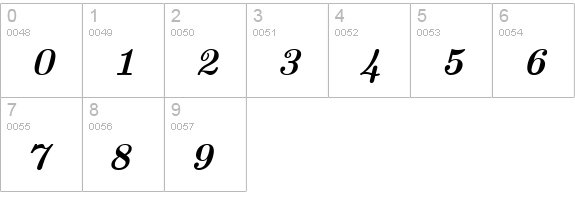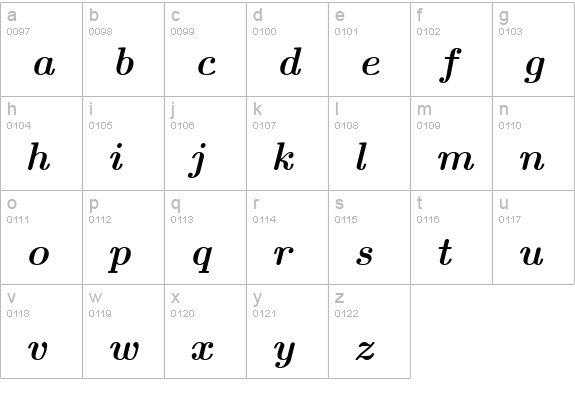
TeXplus RM Bold Italic is a strong, high-contrast, italic variant in the TeXplus typeface family \xE2\x80\x94 well suited to headlines, attention-grabbing titles, and strong calls-to-action.
TeXplus RM Bold Italic is a striking and versatile font that exudes confidence and sophistication. With its bold and italicized design, this font effortlessly captures attention and adds a touch of elegance to any design project. Perfect for headings, titles, and emphasis, TeXplus RM Bold Italic combines the boldness of its weight with the slanted italic style, creating a dynamic and visually appealing aesthetic. Its unique and stylish letterforms make it stand out from the crowd, making it an excellent choice for creating impactful designs. Not only does TeXplus RM Bold Italic offer a visually stunning appearance, but it also provides excellent legibility, ensuring that your message is delivered with clarity and precision. Its well-balanced proportions and carefully crafted letterforms make it readable in both small and large sizes, making it suitable for a wide range of applications. One of the best aspects of TeXplus RM Bold Italic is that it is freely available to download at FontsMarket.com. This means that you can easily access this font and use it in your personal or commercial projects without any restrictions. Whether you're a designer, a student, or a business owner, having access to a high-quality font like TeXplus RM Bold Italic can elevate the overall look and feel of your designs. So why wait? Download TeXplus RM Bold Italic today and experience the power and versatility of this exceptional font. Explore its endless possibilities and create designs that are sure to leave a lasting impression. With TeXplus RM Bold Italic, your typography game will never be the same again.